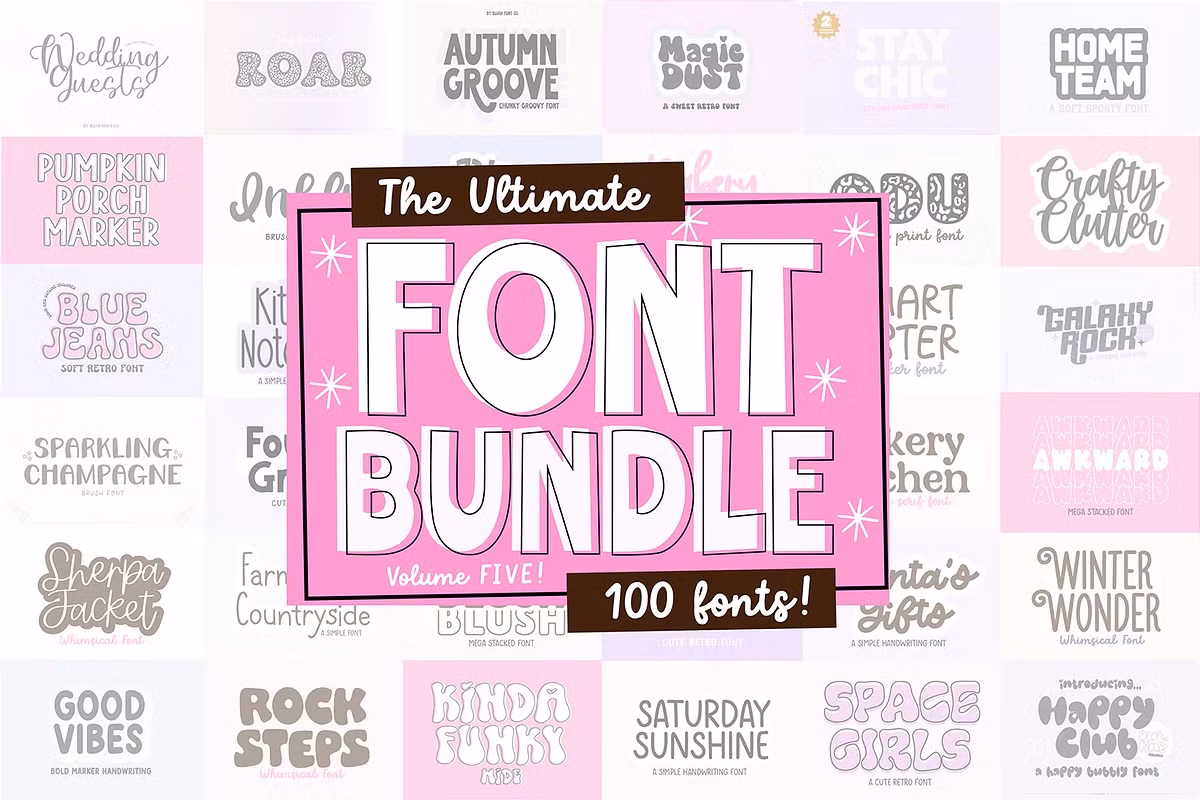
100 Fonts! ULTIMATE FONT BUNDLE V5 Free Download
100 Fonts! ULTIMATE FONT BUNDLE V5 Free Download is a massive collection of 100 high-quality fonts, designed to meet a wide range of creative needs. Whether you're working on branding, logo design, posters, social media graphics, websites, or print materials, this bundle provides you with versatile fonts in various styles including script, serif, sans-serif, display, and more. With such a diverse selection, you'll find the perfect font for any project.
Using the 100 Fonts! ULTIMATE FONT BUNDLE V5 Free Download gives you the flexibility to experiment with different styles, mix and match fonts, and elevate the overall look of your designs. Whether you're creating for personal, corporate, or client-related projects, this font bundle offers everything you need to bring your creative visions to life.